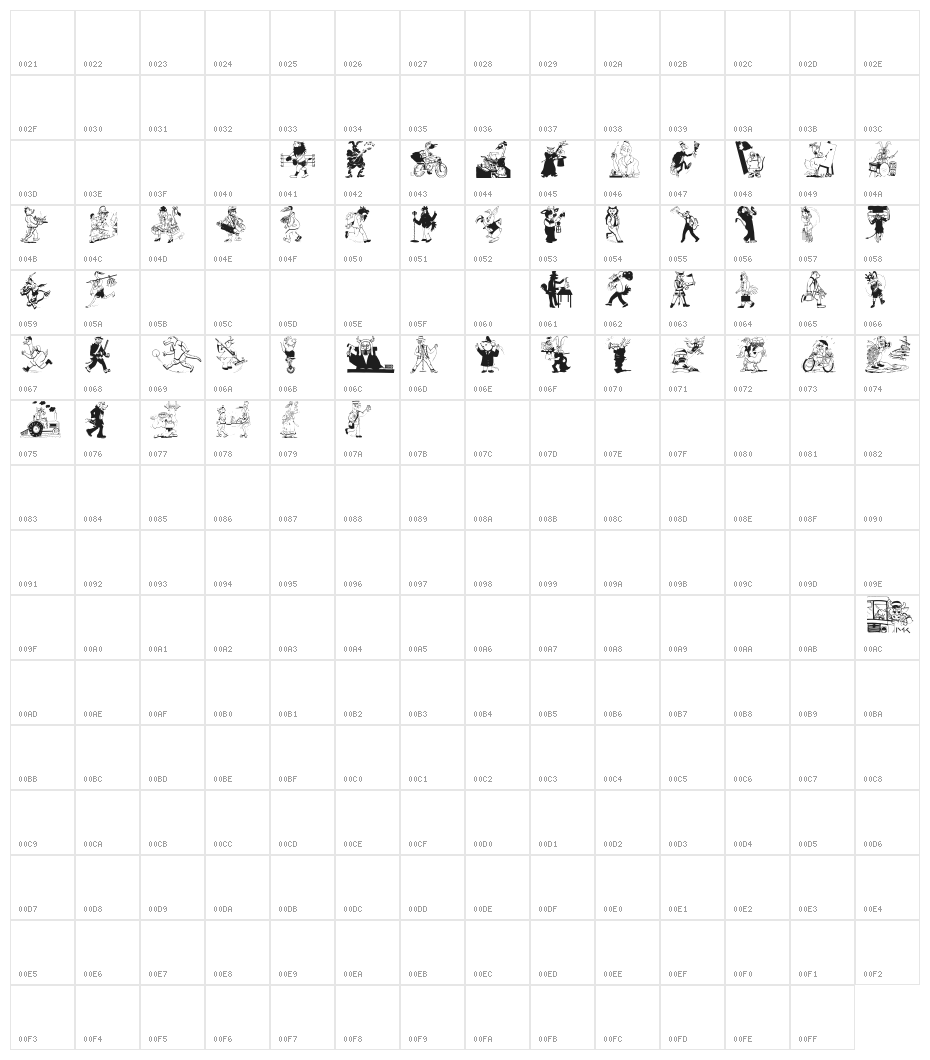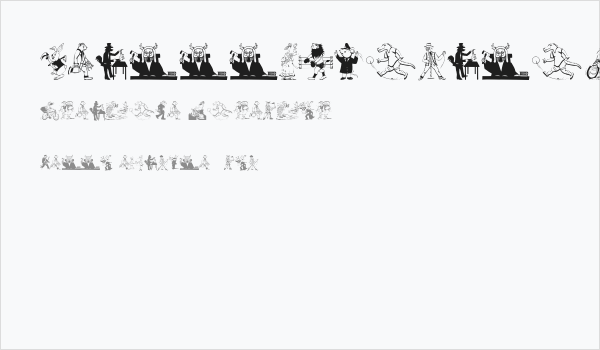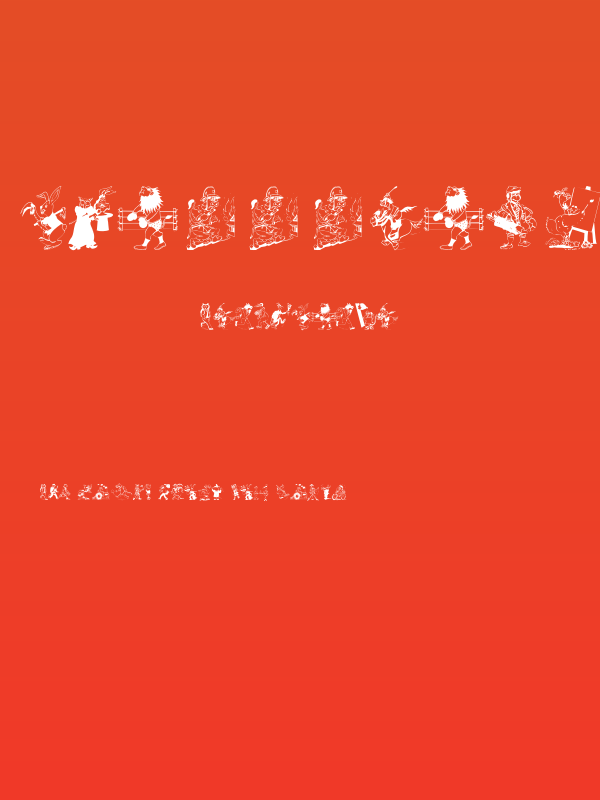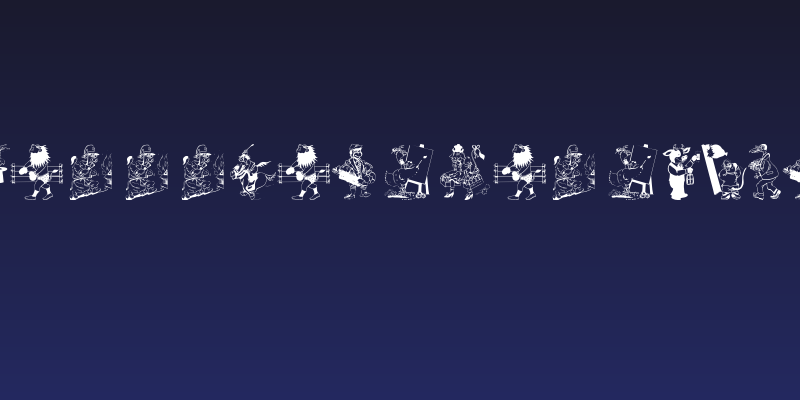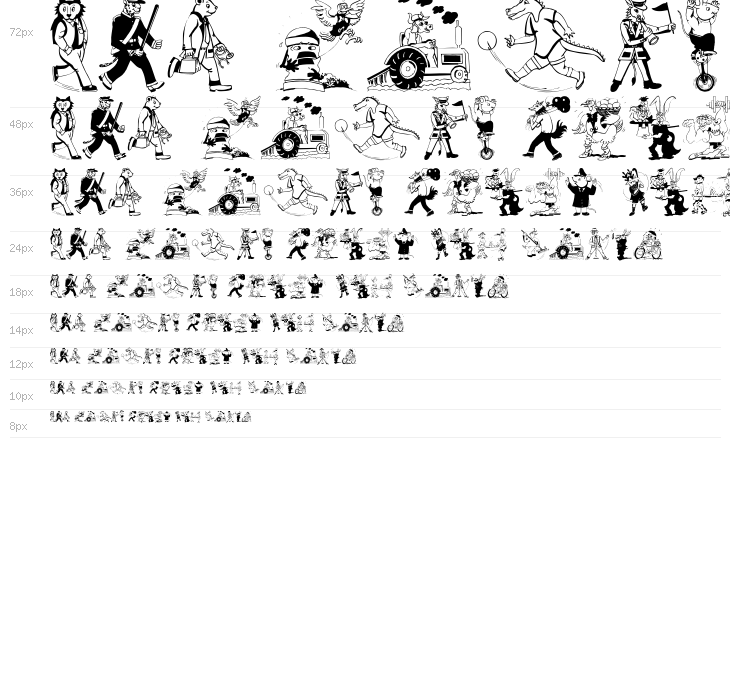
RealllyAnimalishOne Font
RealllyAnimalishOne Description
A highly decorative and whimsical font where each character is represented by a unique cartoon animal illustration, each engaged in various humorous activities. The glyphs are detailed, playful, and lack traditional letterforms, focusing on visual storytelling rather than legibility.
| Overall Style | Whimsical, Decorative, Playful |
| Use Case | Logos, Posters, Children's materials, Decorative headings |
| Proposed Projects | Children's books, posters, party invitations, educational materials, novelty branding. |